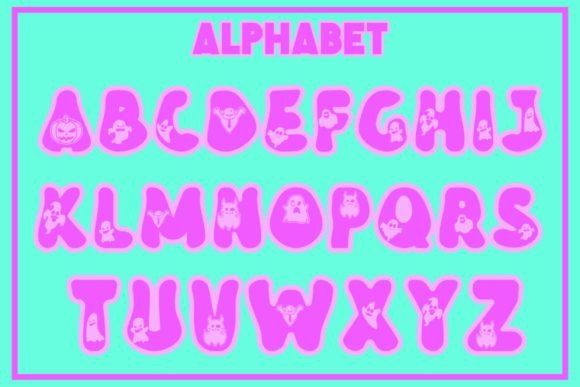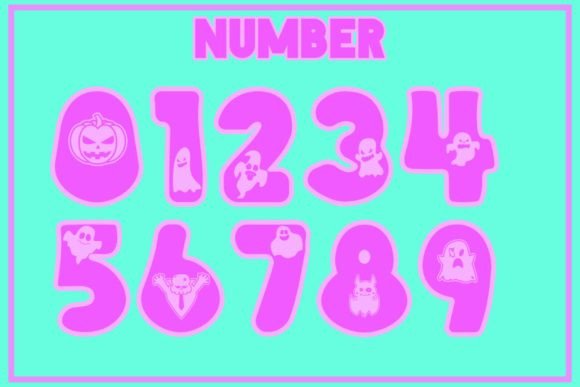
Introducing Ghost Town Font: Add a Touch of Whimsy to Your Designs
Are you tired of using the same old fonts in your designs? Do you want to add a touch of personality and whimsy to your projects? Look no further than Ghost Town Font, a fun and adorable decorative font that’s sure to bring cheerfulness to your designs. In this article, we’ll take a closer look at Ghost Town Font, its features, and how you can use it to elevate your designs.
What is Ghost Town Font?
Ghost Town Font is a decorative font designed to add a playful and charming touch to your designs. Its unique and quirky style makes it perfect for a variety of projects, from covers and posters to crafty DIY projects and more. With Ghost Town Font, you can add a dash of personality to your designs and make them stand out from the crowd.
Key Features of Ghost Town Font
- Fun and Adorable: Ghost Town Font is designed to be fun and adorable, making it perfect for designers and crafters who want to add a touch of whimsy to their projects.
- Decorative: This font is a decorative font that’s perfect for use on covers, posters, and other eye-catching materials.
- Versatile: This font can be used on a variety of projects, from DIY crafts to professional designs.
- Covers: Use Ghost Town Font to create eye-catching covers for books, magazines, and other publications.
- Posters: Add a touch of whimsy to your posters with Ghost Town Font, perfect for advertising events, promotions, and more.
- DIY Projects: Use Ghost Town Font to add a personal touch to your DIY projects, such as crafts, scrapbooking, and more.
- Social Media: Use Ghost Town Font to create eye-catching social media graphics, perfect for grabbing the attention of your followers.
Benefits of Using Ghost Town Font
There are many benefits to using Ghost Town Font in your designs. Here are a few:
- Adds Personality: Ghost Town Font adds a touch of personality and whimsy to your designs, making them stand out from the crowd.
- Easy to Read: Despite its decorative style, Ghost Town Font is easy to read, making it perfect for use on a variety of materials.
- Versatile: This font can be used on a variety of projects, from DIY crafts to professional designs.
- Time-Saving: With Ghost Town Font, you can create professional-looking designs in no time, saving you time and effort.
Tips for Getting the Most Out of Ghost Town Font
Here are a few tips for getting the most out of Ghost Town Font:
- Experiment with Colors: Ghost Town Font looks great in a variety of colors, so don’t be afraid to experiment and find the perfect color for your design.
- Pair with Other Fonts: Consider pairing Ghost Town Font with other fonts to create a unique and eye-catching design.
- Use on a Variety of Materials: Ghost Town Font can be used on a variety of materials, from paper to fabric and more.
| Font Name | Ghost Town Font |
| Author | CHEETAH DOODLE |
Ghost Town Font is a fun and adorable decorative font that’s perfect for designers and crafters who want to add a touch of whimsy to their projects. With its unique and quirky style, this font is sure to bring cheerfulness to your designs. Whether you’re creating covers, posters, DIY projects, or anything else, Ghost Town Font is a great choice. So why wait? Download Ghost Town Font today and start adding a touch of personality to your designs!